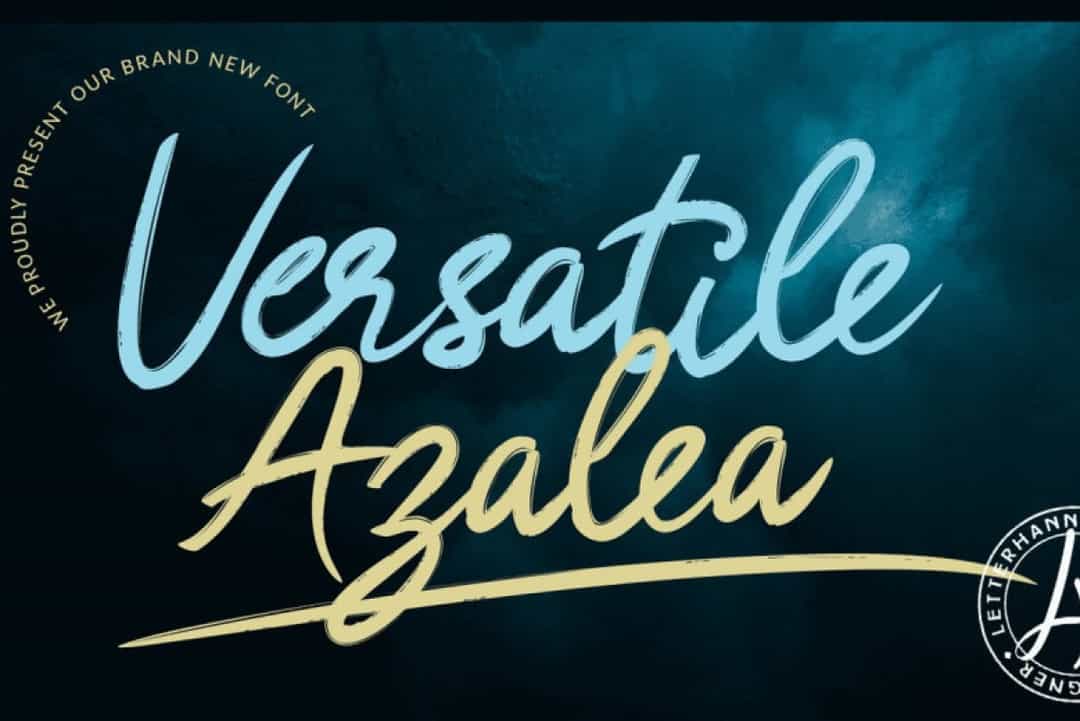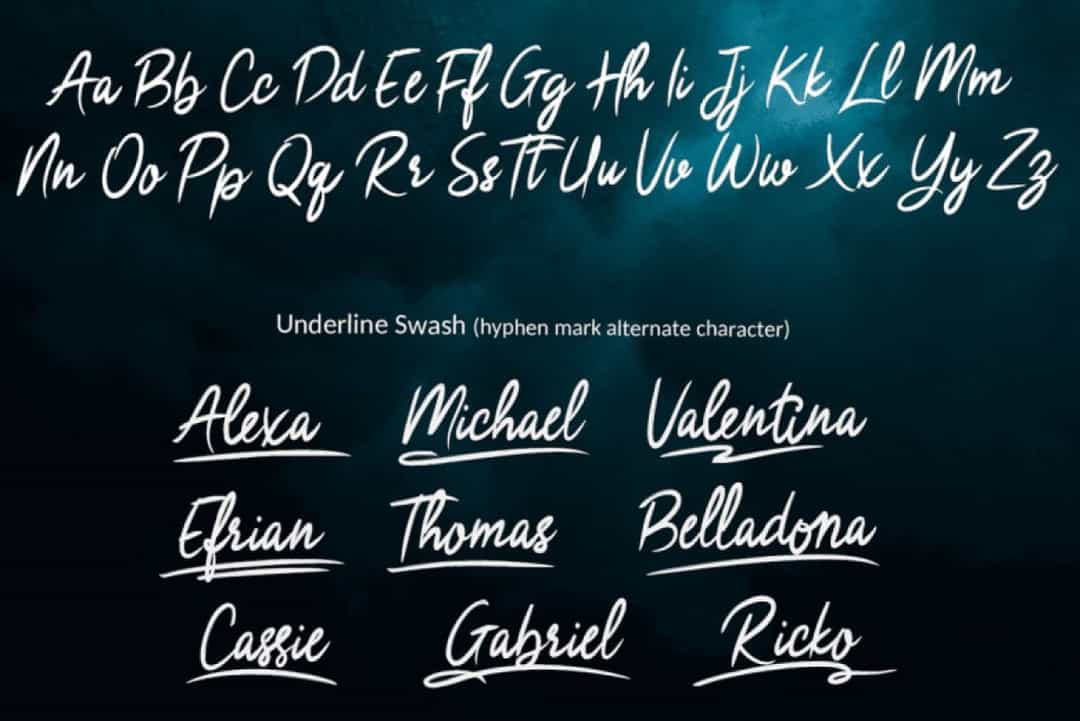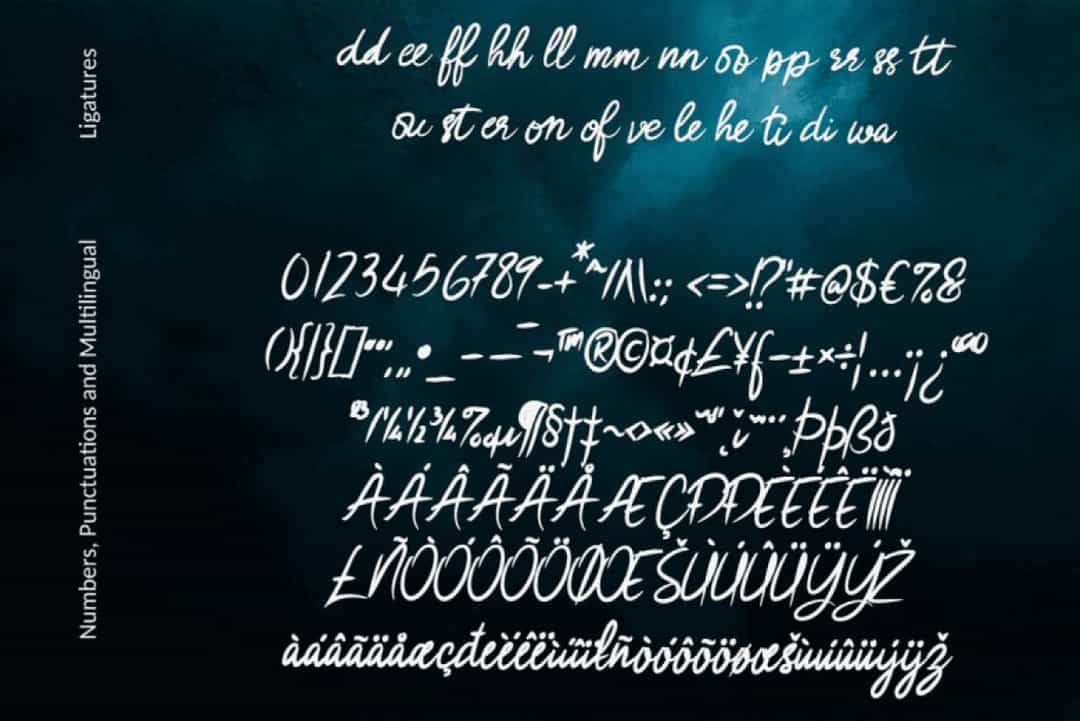
Discover Versatile Azalea Font, part of the Brush collection—a versatile and unique font perfect for adding a personal touch to your projects. Download it for free and enjoy crafting designs with style, from invitations to social media posts. This font is available exclusively for personal use, giving you the freedom to create without limits. Unlock your creativity with Versatile Azalea Font today!
Flexible Azalea is an elegant brush typeface featuring modern aesthetics with plenty of underline swashes. Perfect for decorative and display purposes alike! Add luxurious sparkle to any design idea you create with its incredible versatility! Create stunning masterpieces!